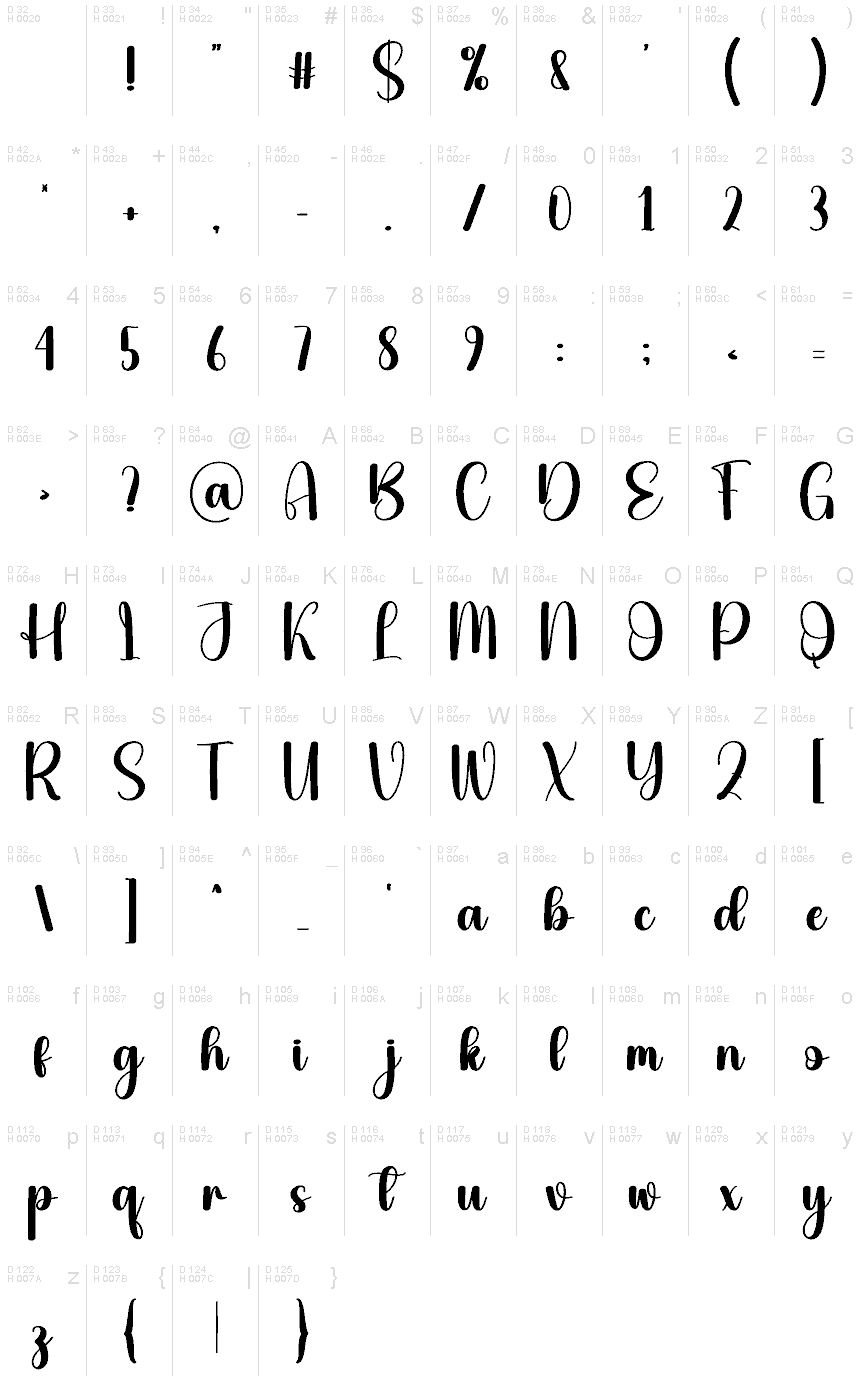
Keychains
Keychains font by Scratchones is a handwritten typeface that intertwines personal elegance with contemporary flair. Its consistent smooth texture has precise lines and delicate curves, making this logotype a pleasant option for those who want an authentic writing effect.
Consider Keychains for wedding invitations, business branding, and various publication ads. Packaging design, book covers, and blog titles are also ideal uses for the free handwriting font.